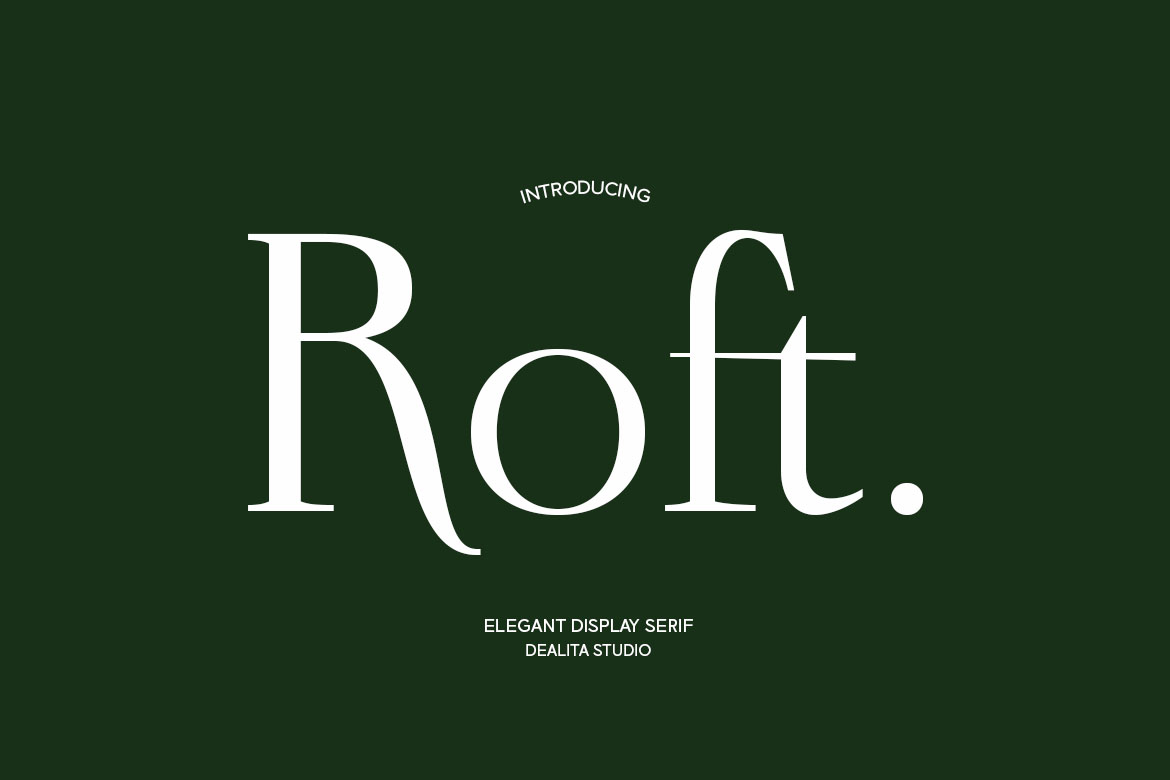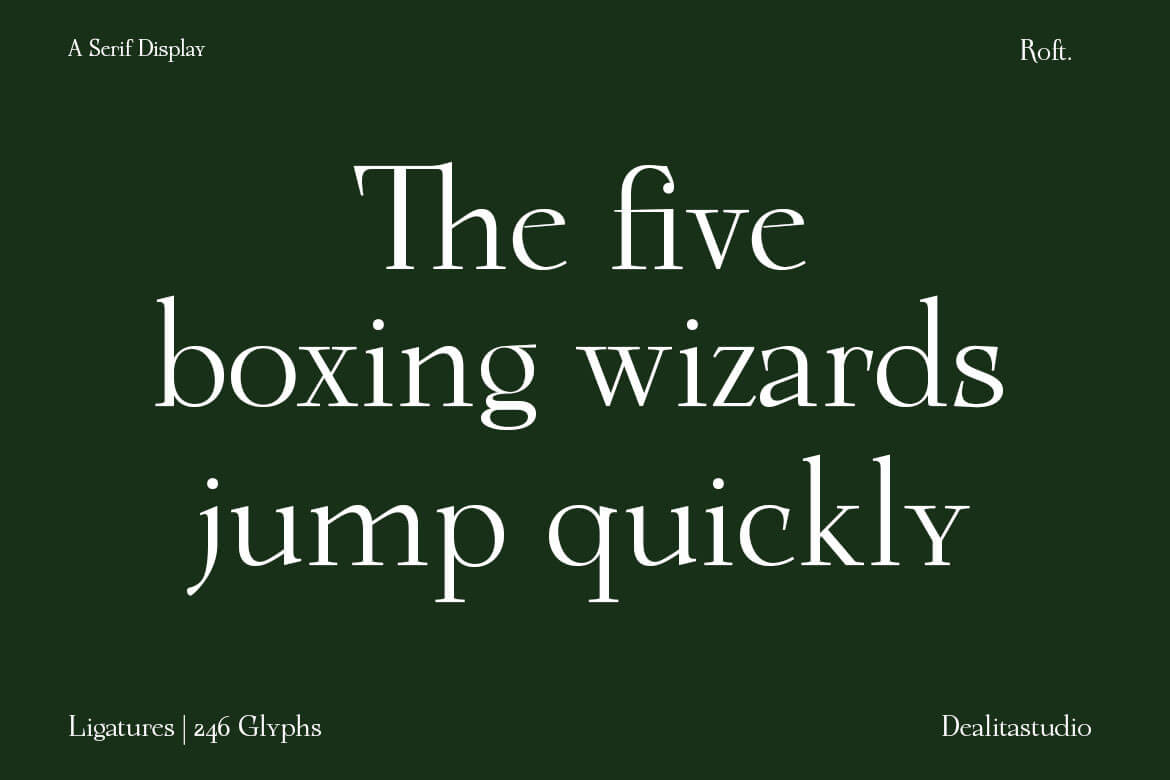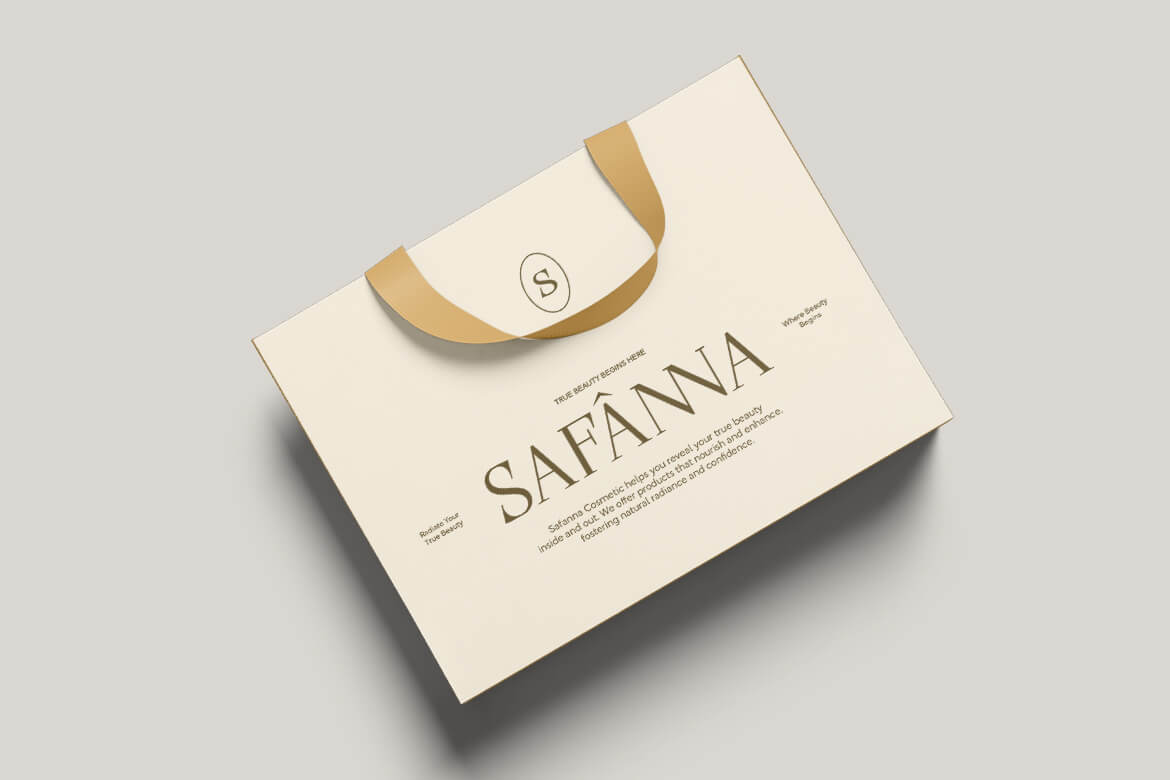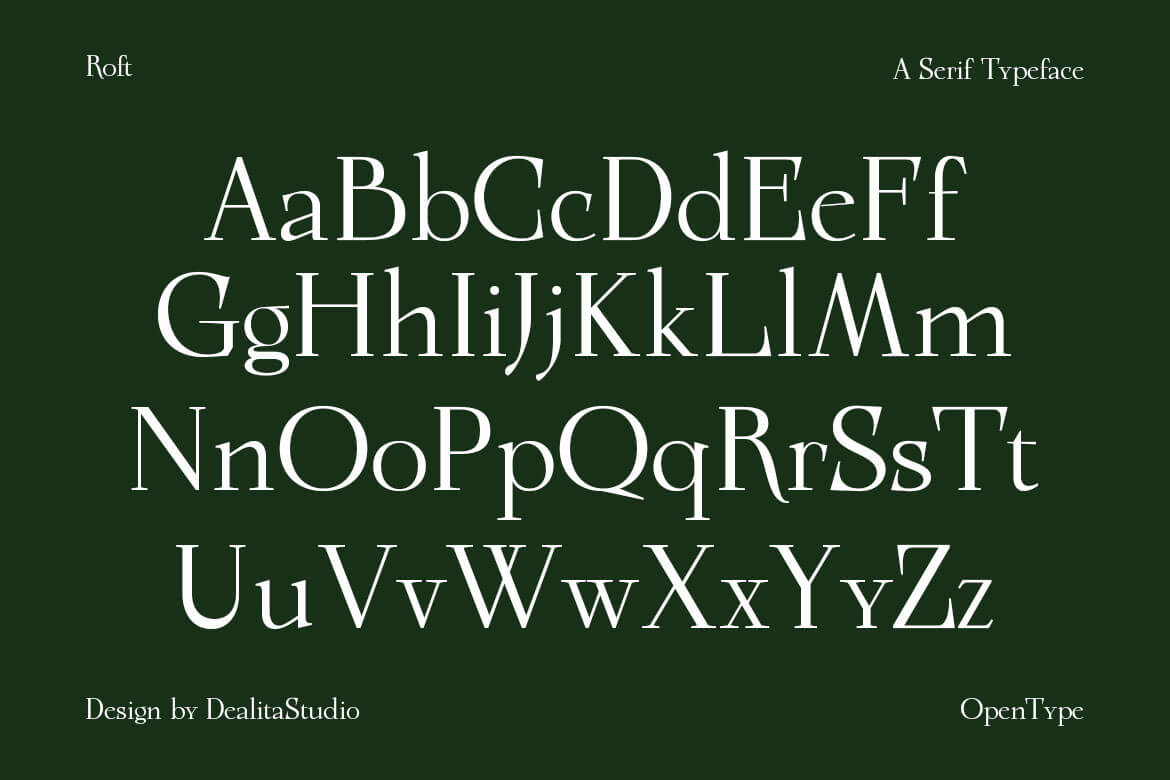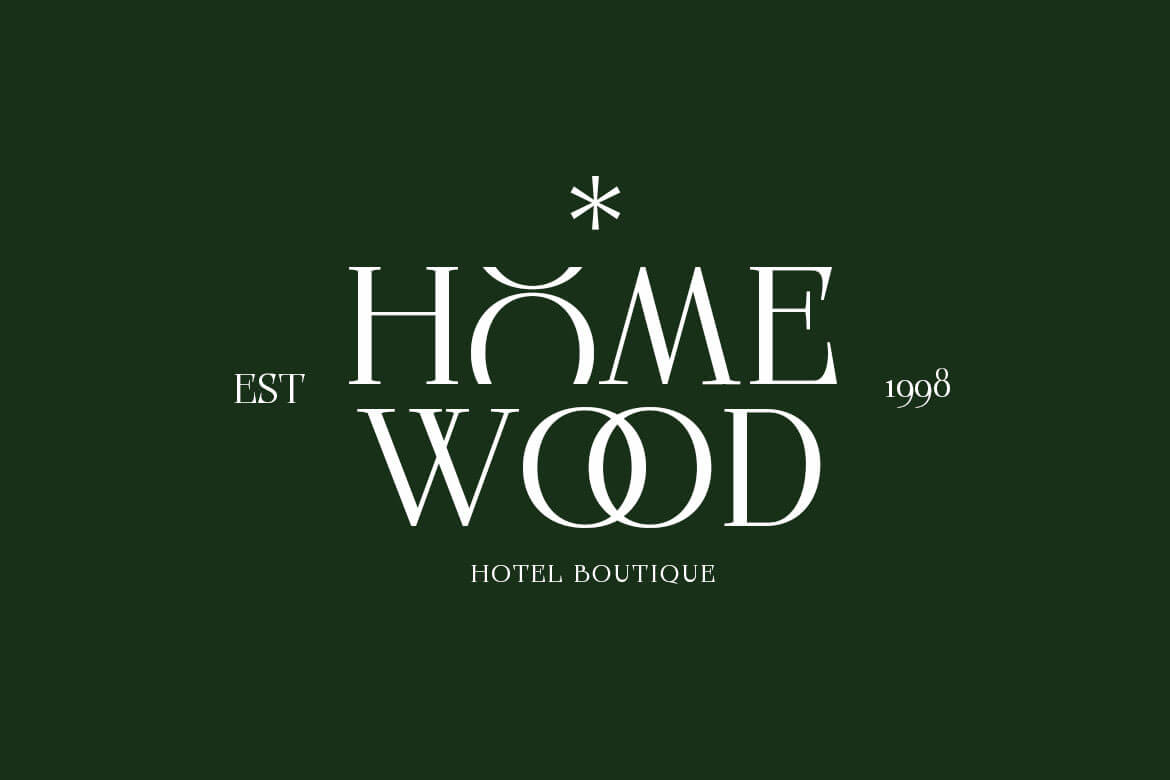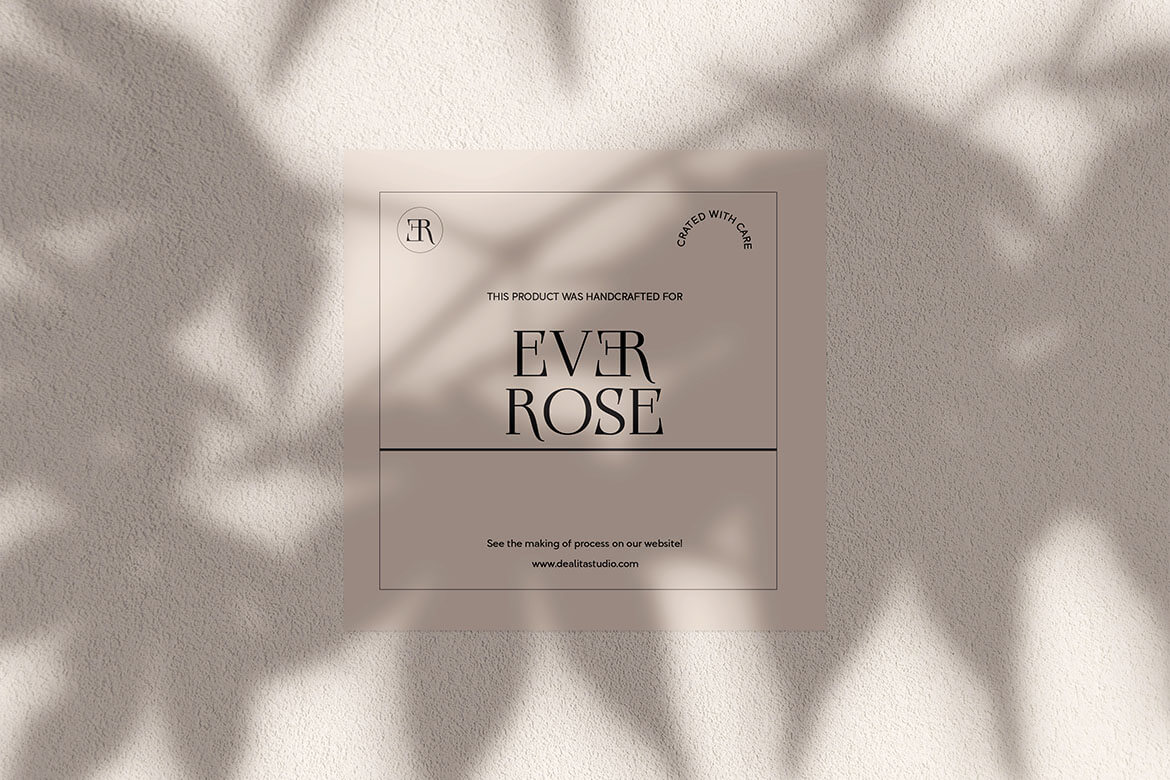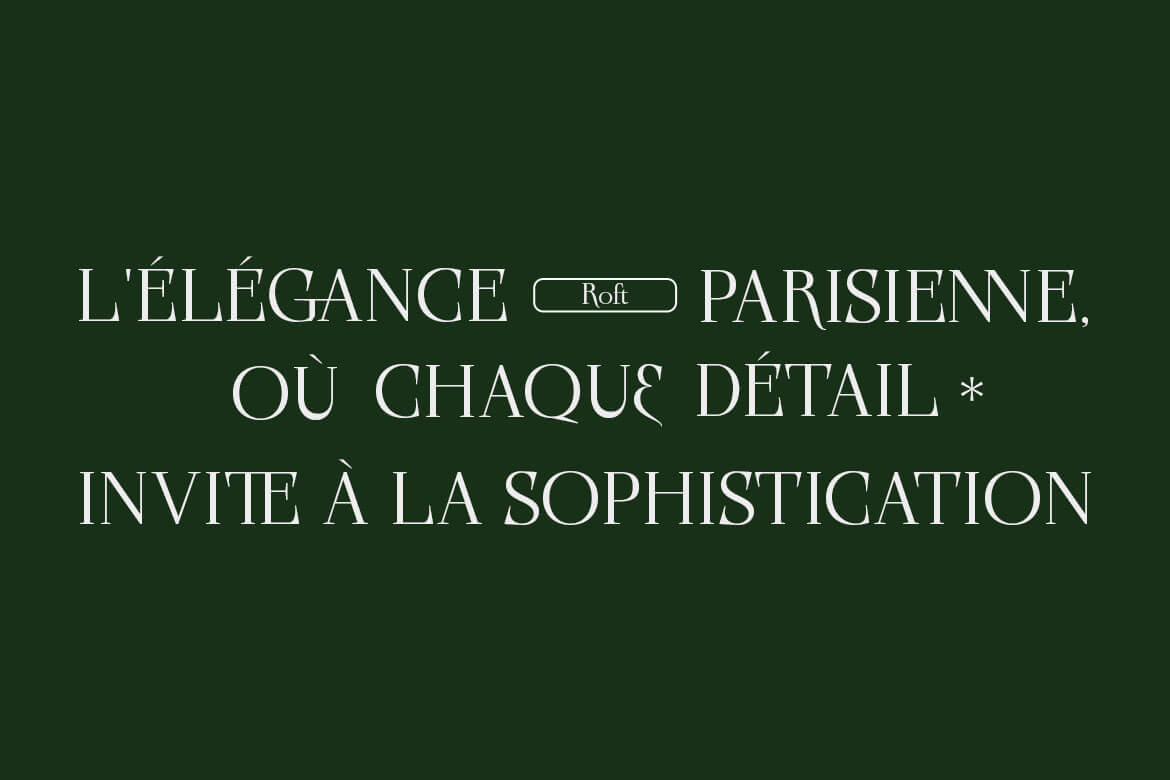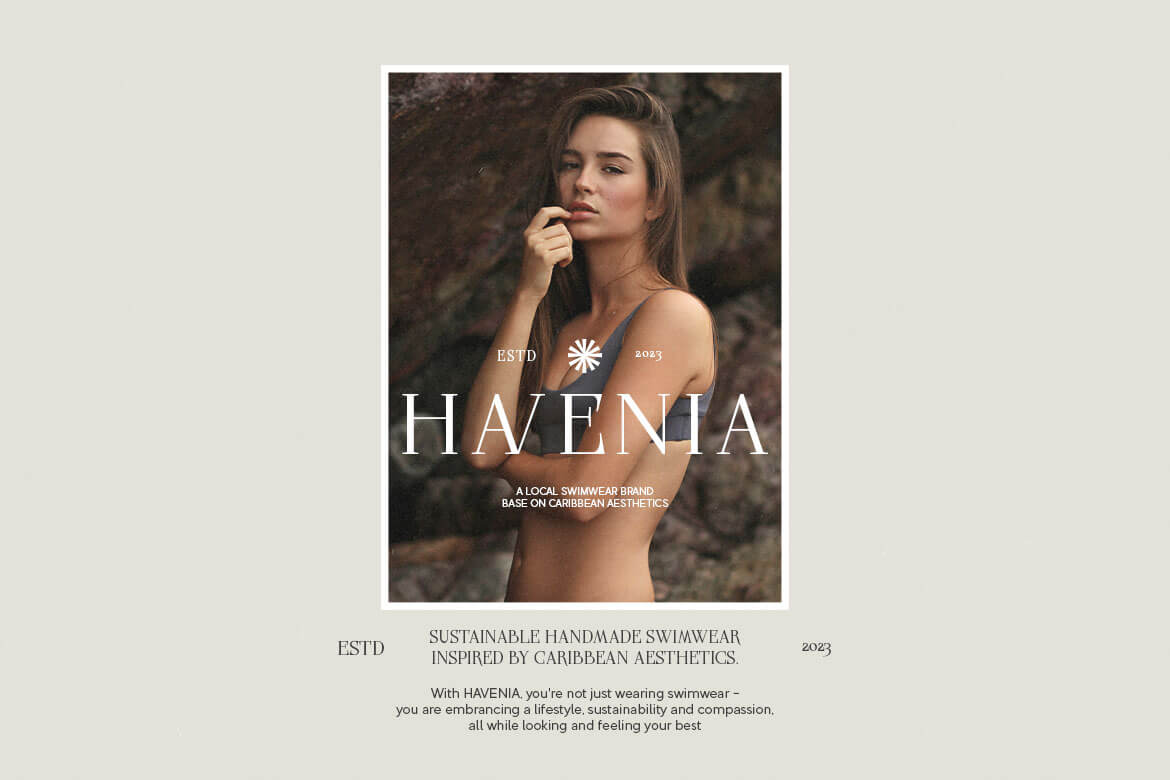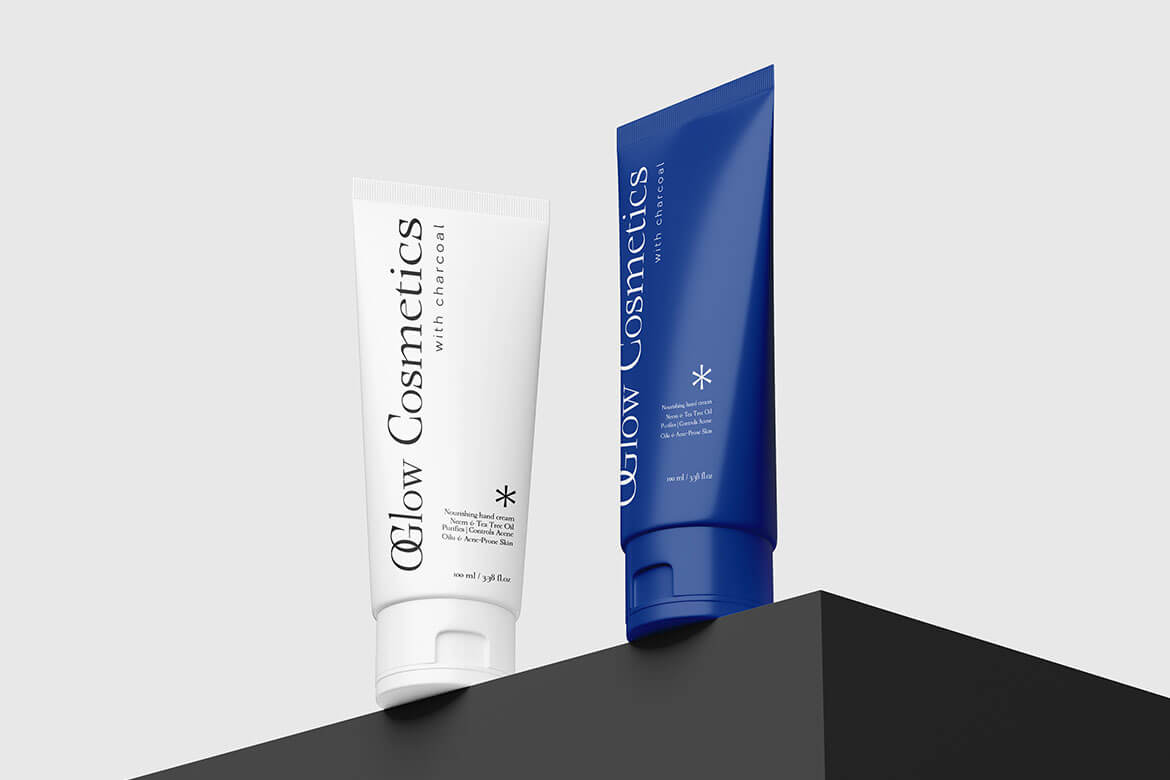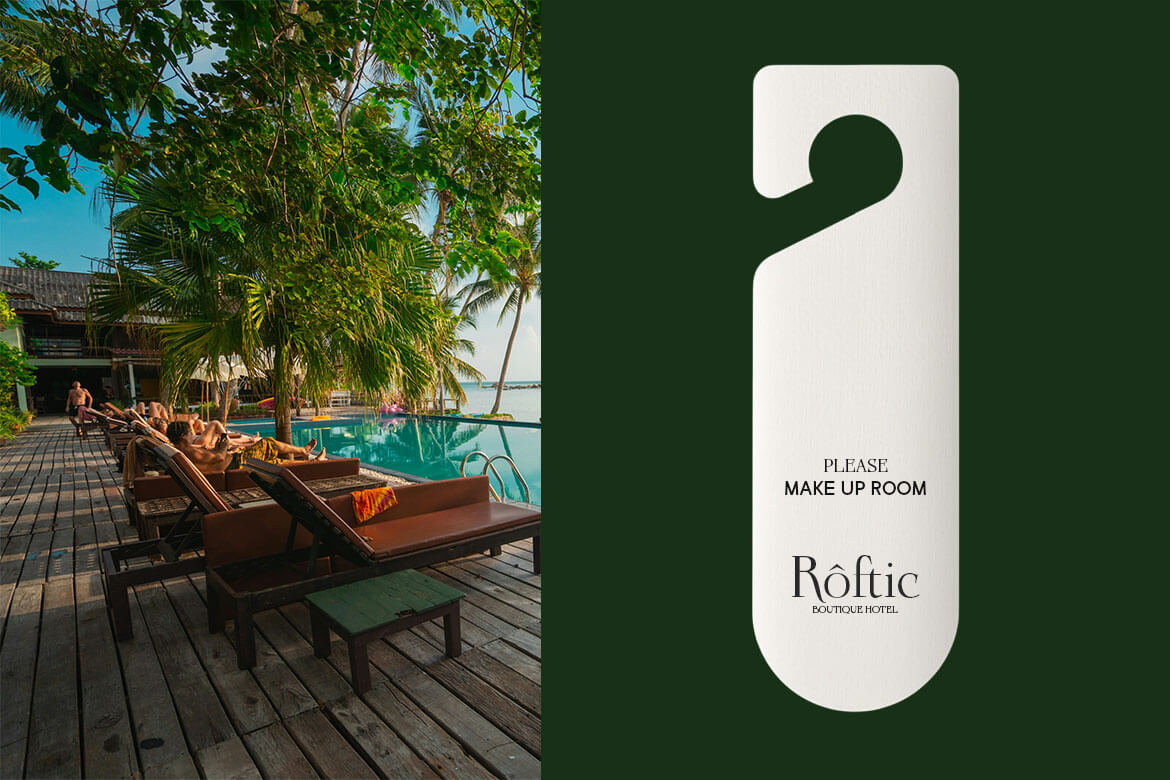
Roft | Modern Serif Font for Refined Branding
Description
Roft is a sleek modern serif font that blends clean lines with subtle elegance. Designed for clarity and sophistication, Roft is perfect for minimalist branding, editorial design, and packaging projects that demand a refined yet understated presence.
With its balanced contrast and timeless structure, Roft brings a sense of calm authority to your typography. It is ideal for fashion labels, beauty brands, book covers, and digital content where less is truly more. Roft does not shout—it speaks with confidence and grace.
Ideal Applications
- Fashion and minimalist lifestyle branding
- Clean packaging and modern label design
- Editorial layouts and sophisticated magazine headlines
- Website typography and professional social media graphics
Technical Specifications & Precision
- Micro-Typography Control: Stylistic Alternates (SALT) specifically crafted to refine awkward E-E and O-O pairings for absolute typographic perfection.
- Smooth Connections: 25 Ligatures across two OpenType features for a contemporary flow.
- Comprehensive Utility: 248 Glyphs, including extensive punctuation and symbols.